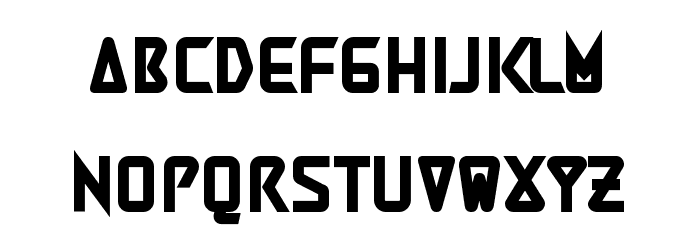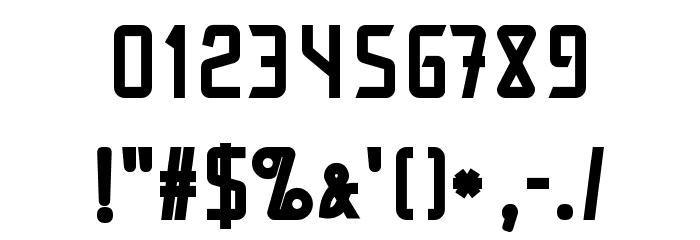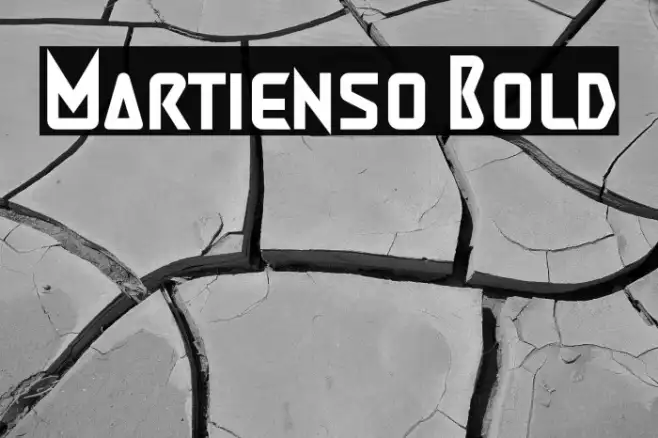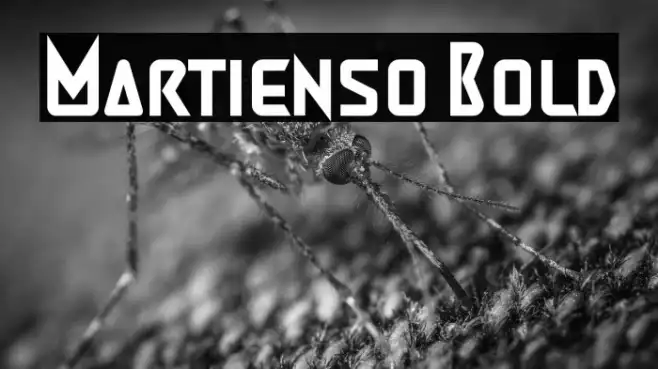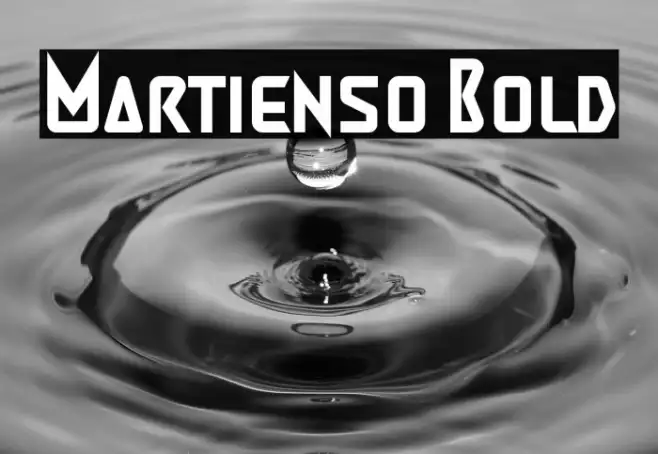
Martienso Bold Font
This font features a bold and geometric design with a futuristic flair. The characters are constructed with sharp angles and clean lines, giving it a distinct and modern appearance. The uppercase letters are particularly striking, with unique shapes that make them stand out. The lowercase letters maintain the same angular style, ensuring consistency throughout the typeface. Numbers and special characters are designed to match the bold and edgy aesthetic, making this font suitable for eye-catching designs. The overall look is both contemporary and versatile, ideal for projects that require a strong visual impact.
A bold, geometric font with a futuristic and modern design.
- Proposed Projects: Ideal for branding, posters, headlines, and any design requiring a modern and bold statement.